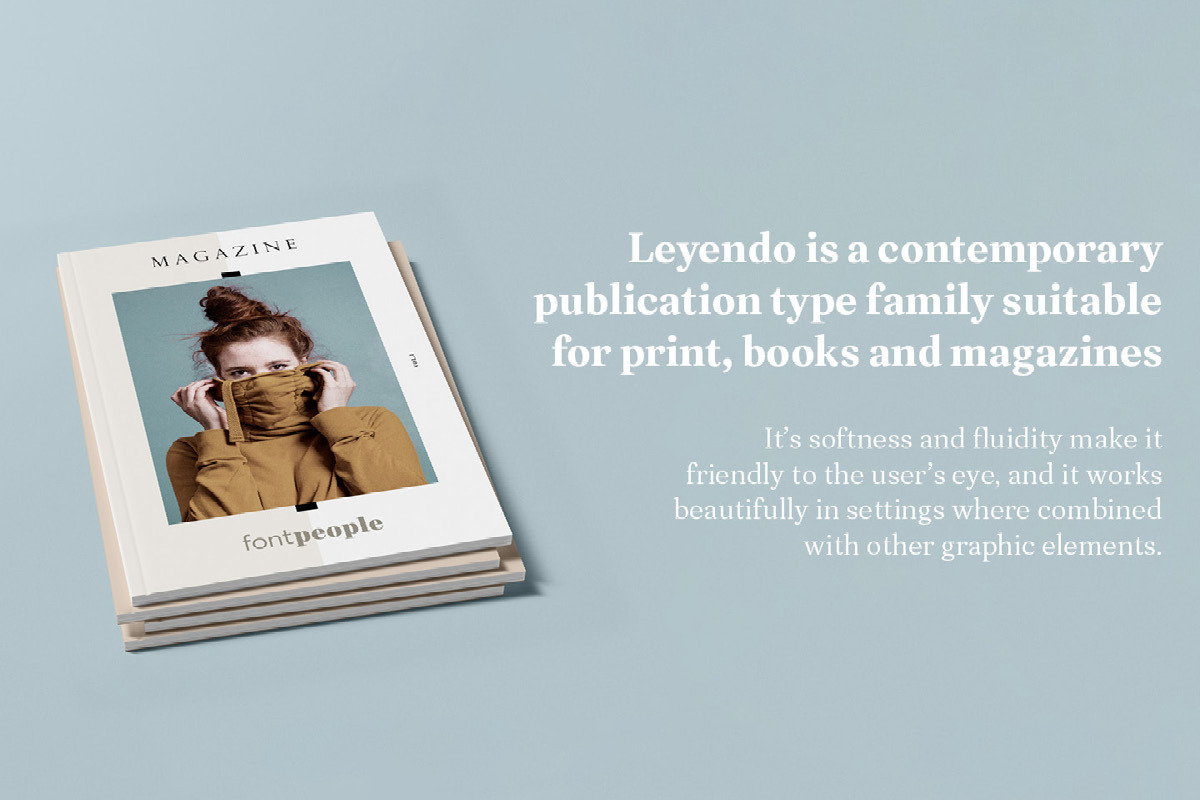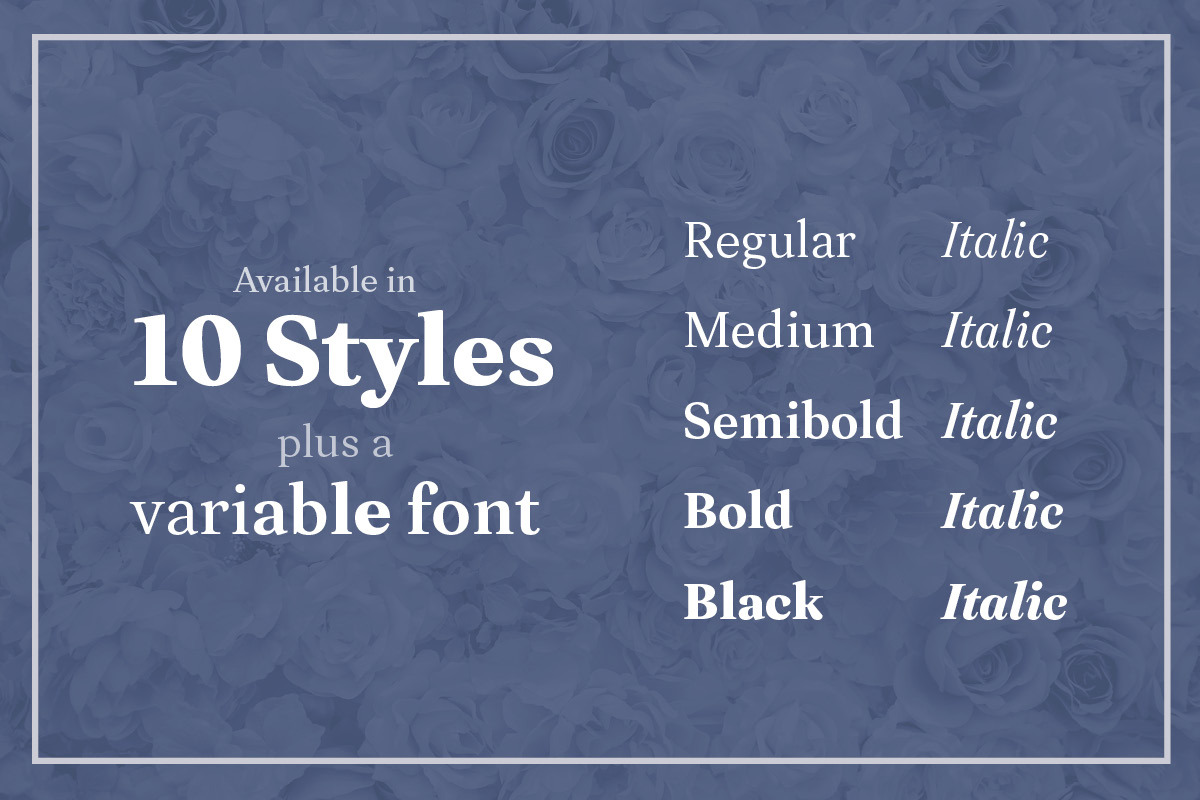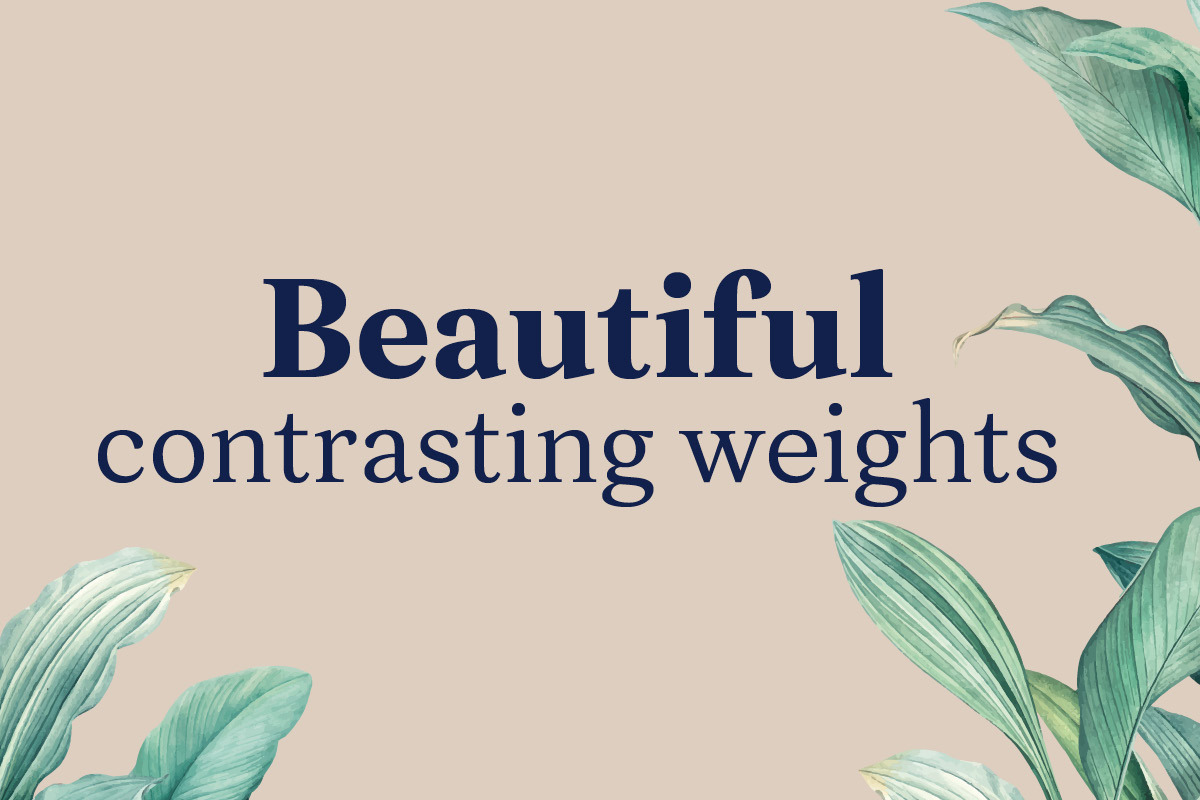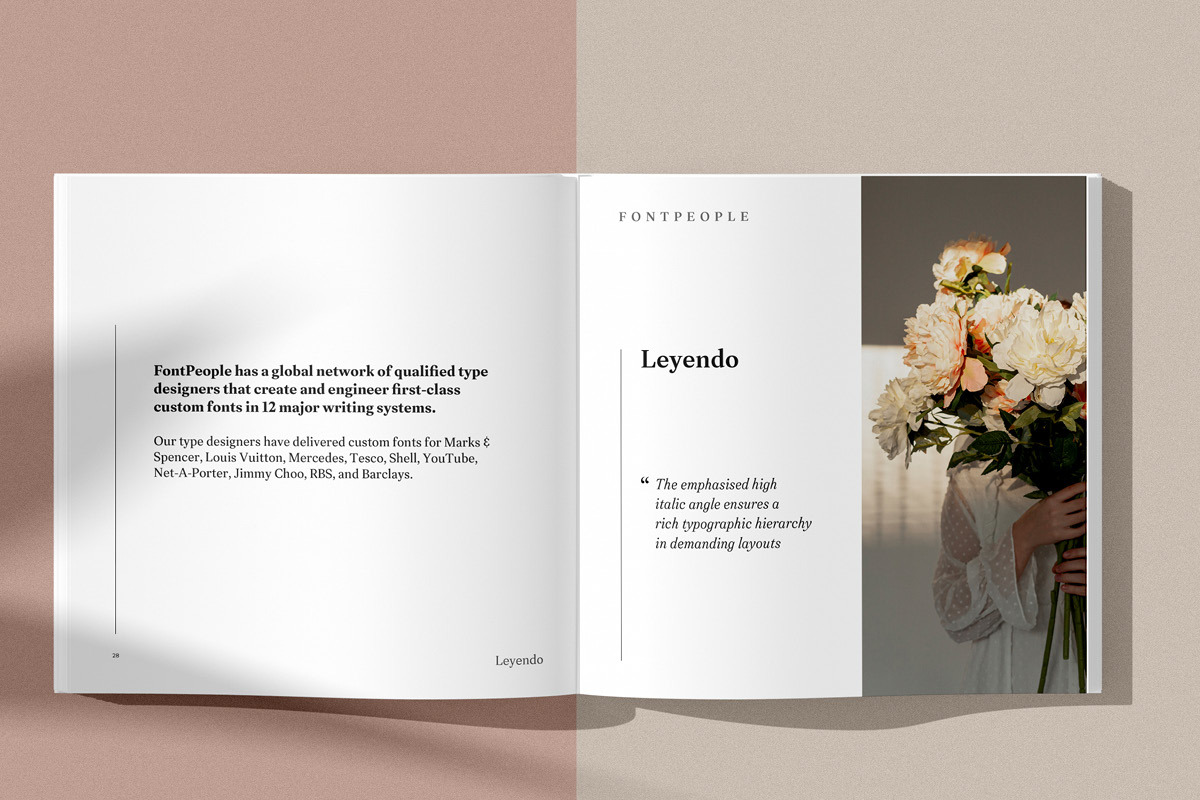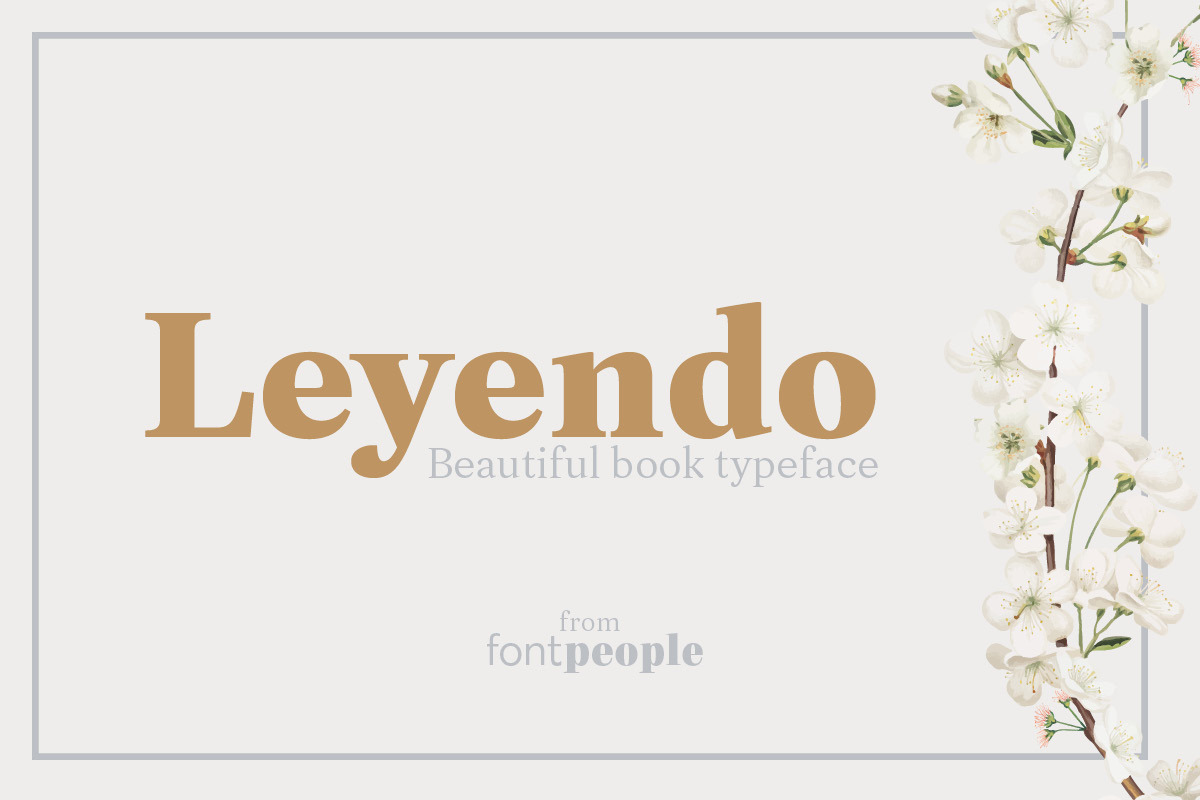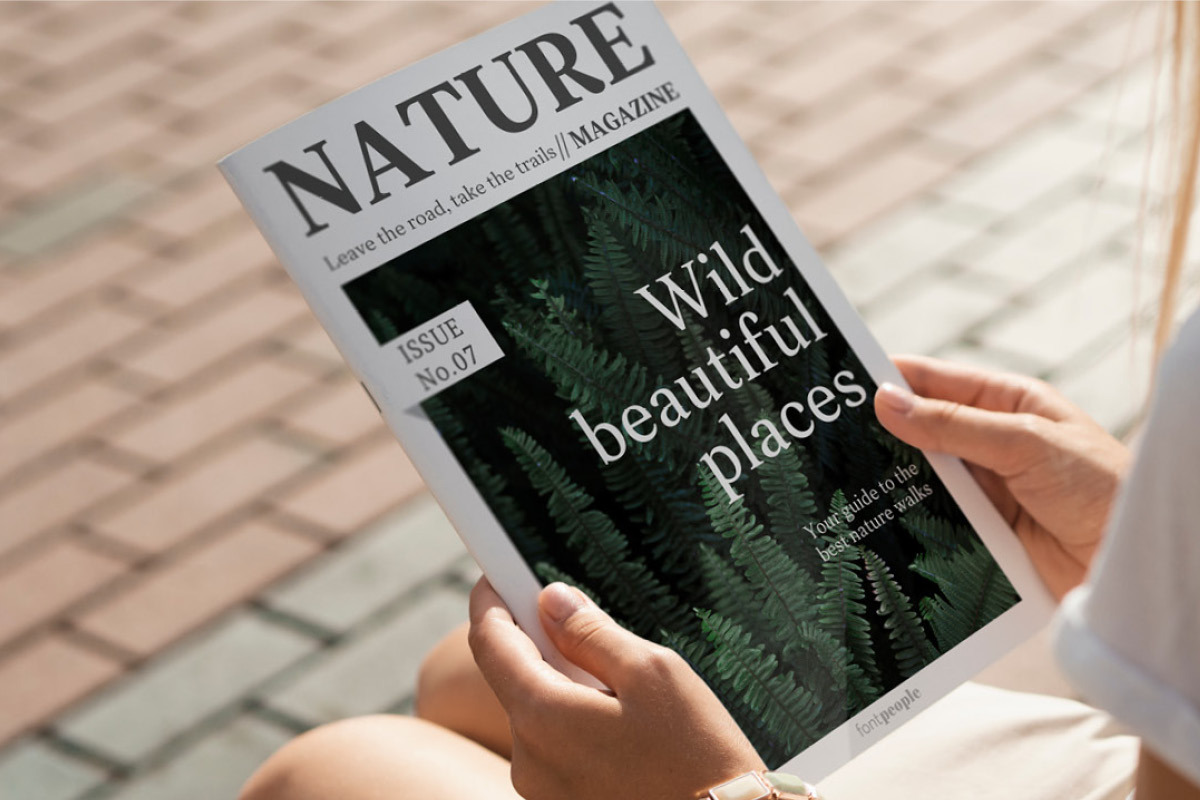
Leyendo font family by FontPeople
Leyendo is Spanish for Reading. It is a contemporary publication type family suitable for books and magazines. Its softness and fluidity make it friendly to the user’s eye. The emphasised high italic angle ensures a rich typographic hierarchy in demanding layouts. Leyendo works well in settings where it is also combined with other graphic elements. Its self-conscious nature makes the type appear aesthetic in display sizes when kerned tight.